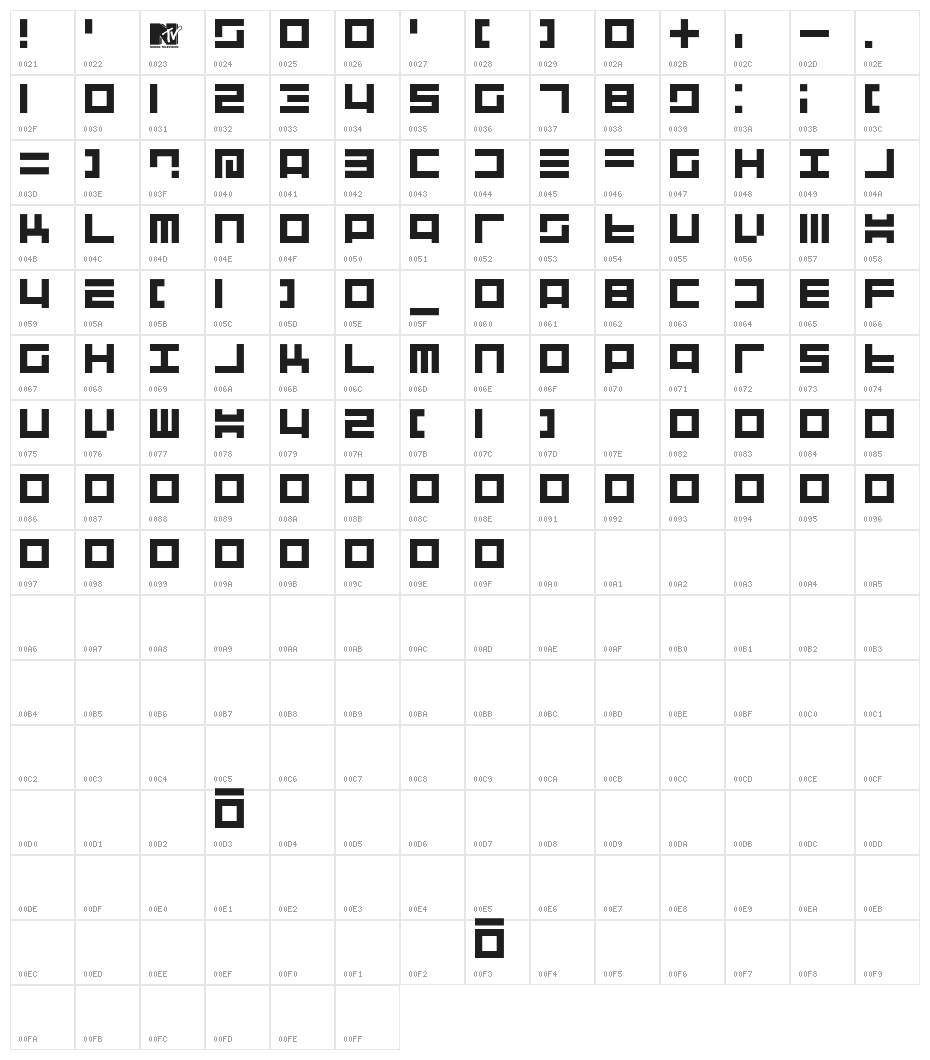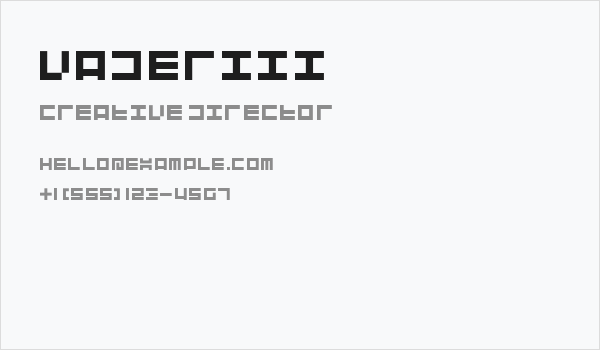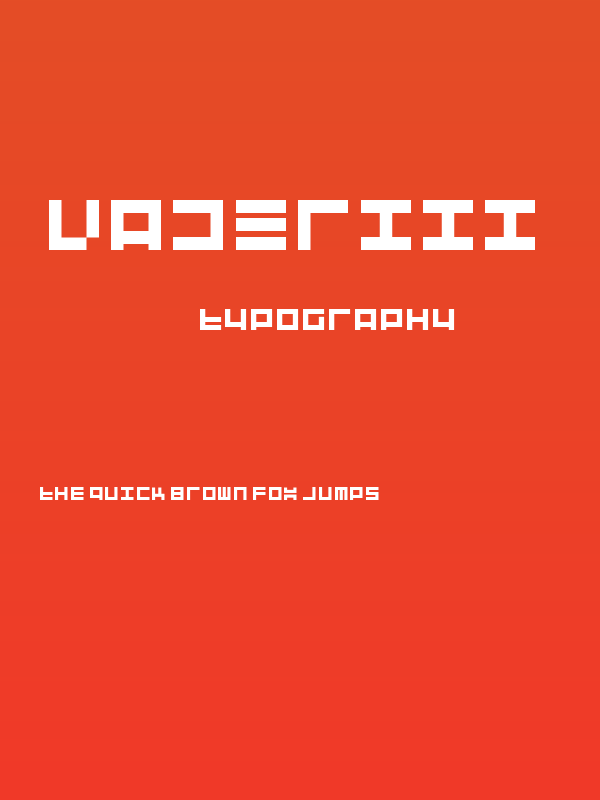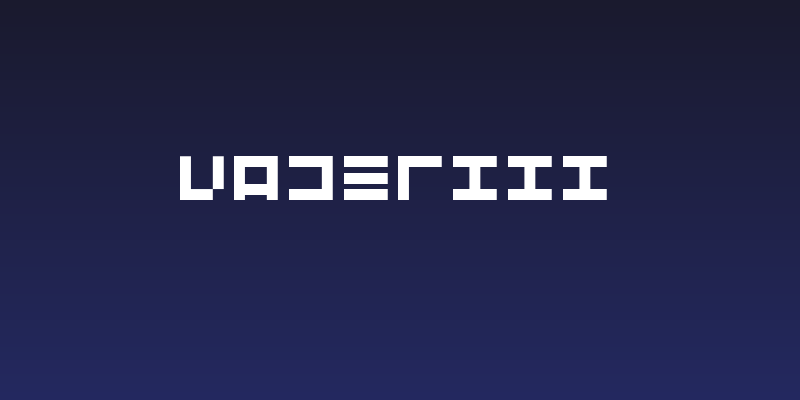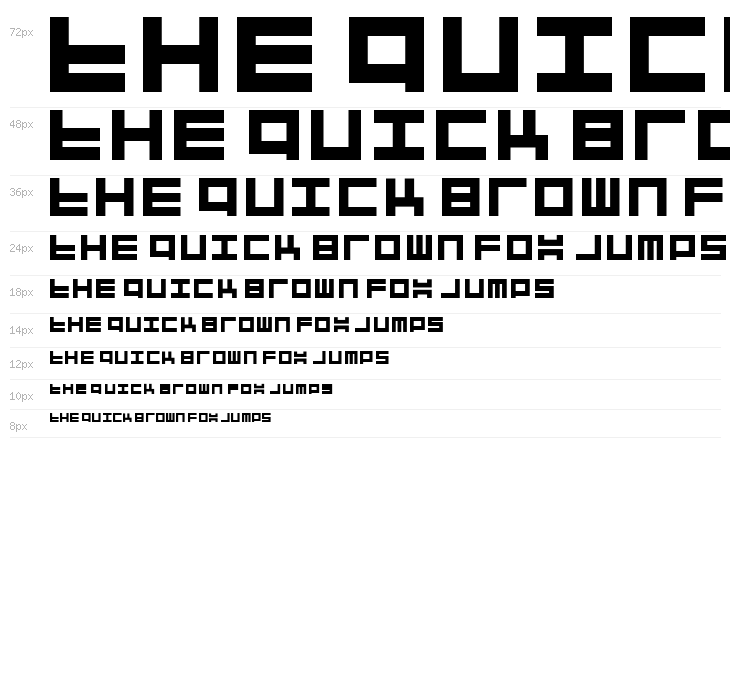
Vaderiii Font
Vaderiii Description
This font features a bold, geometric design with a futuristic and digital aesthetic. The characters are constructed with thick, uniform strokes, creating a strong and impactful presence. The uppercase letters are particularly angular, with sharp edges and a blocky appearance. The lowercase letters maintain the same geometric style, ensuring consistency across the typeface. Numbers and special characters are designed to match the overall theme, providing a cohesive look. The font's style is reminiscent of digital displays or sci-fi themes, making it ideal for projects that require a modern and technological feel.
| Proposed Projects | Ideal for technology branding, sci-fi posters, video game interfaces, and digital-themed advertisements. |